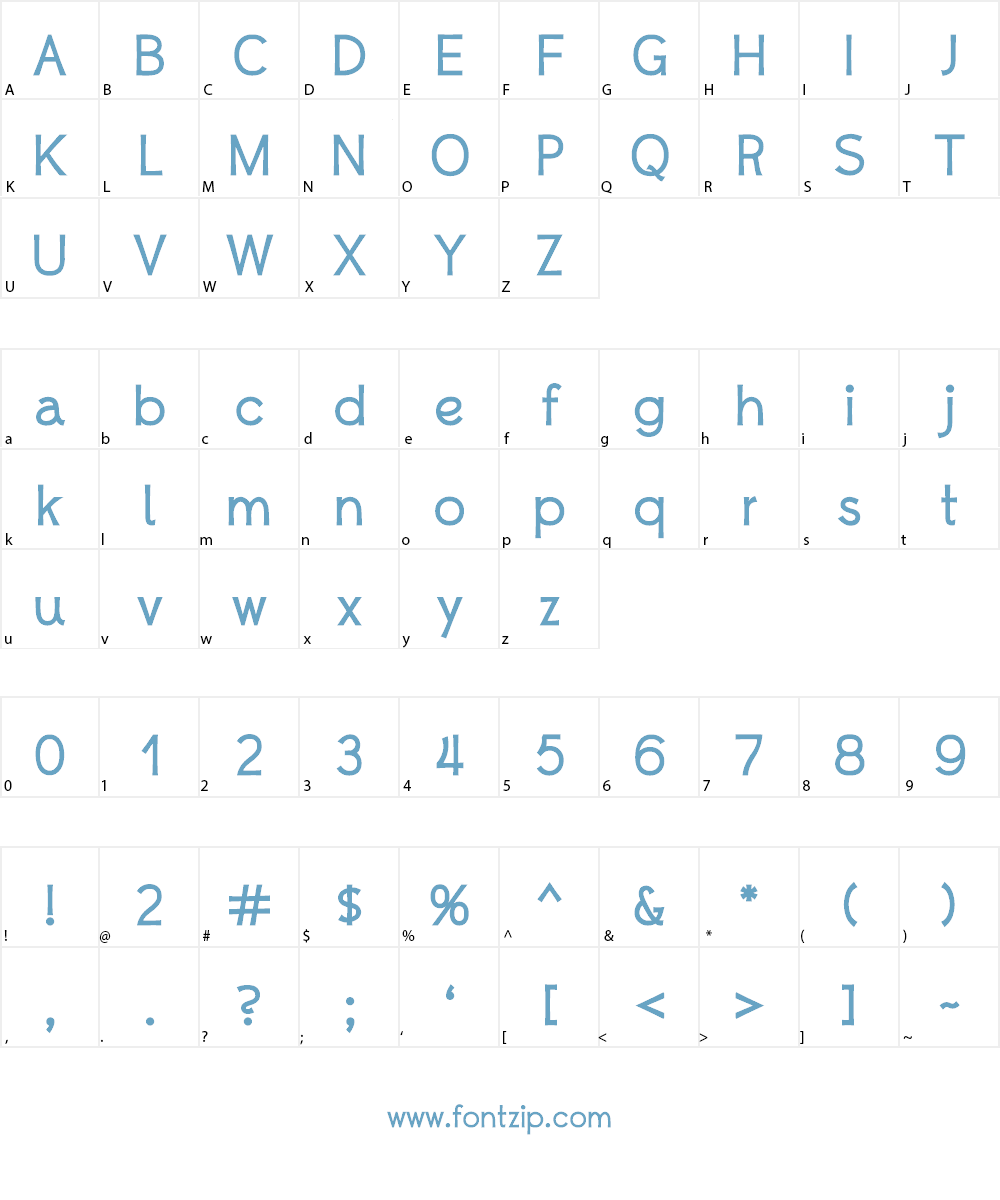
A playful and inviting hand-tooled sans serif that doesn't take itself too seriously while simultaneously maintaining it's delightful and exacting aesthetic. Free for personal use. Donate to use commercially. Email me at nymphont at yahoo dot com for more info. ~Lauren